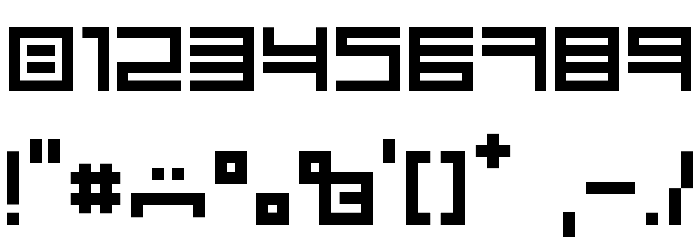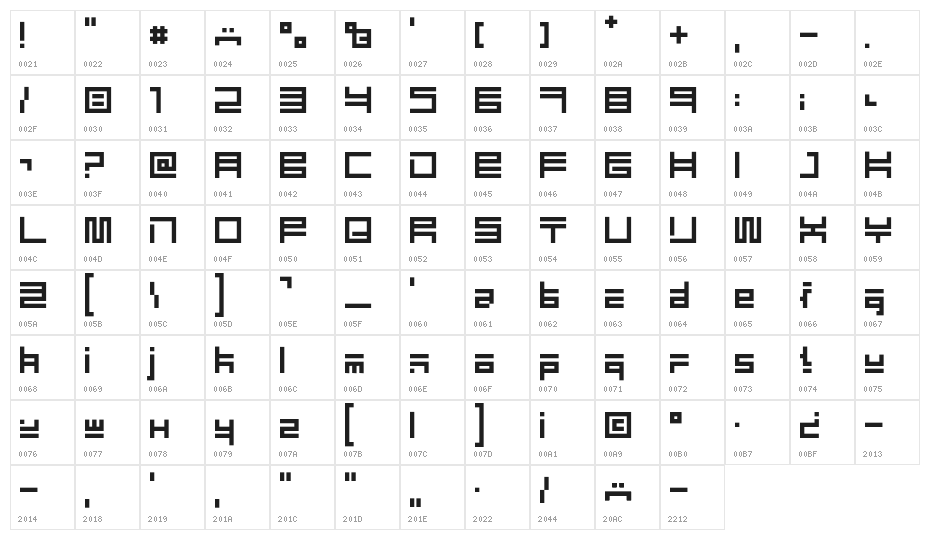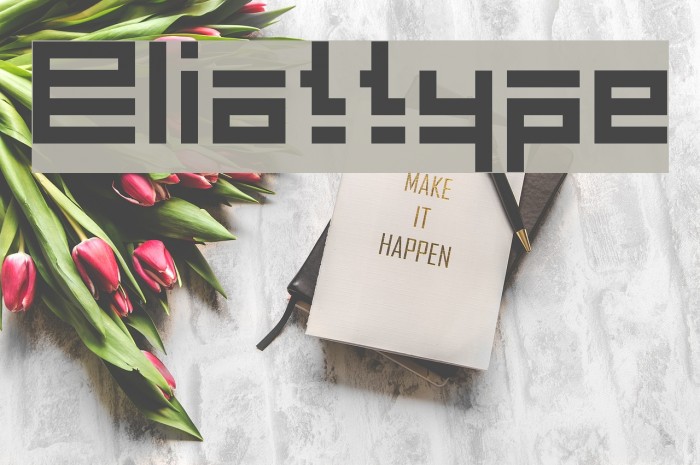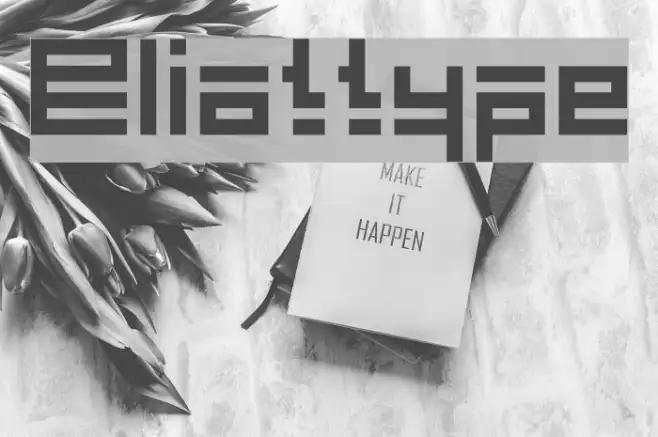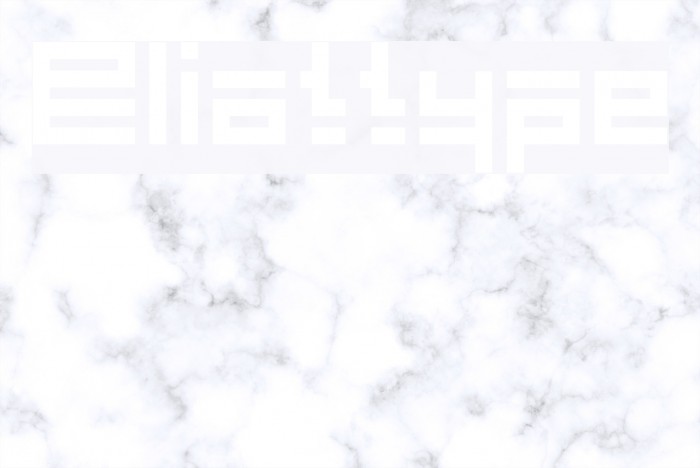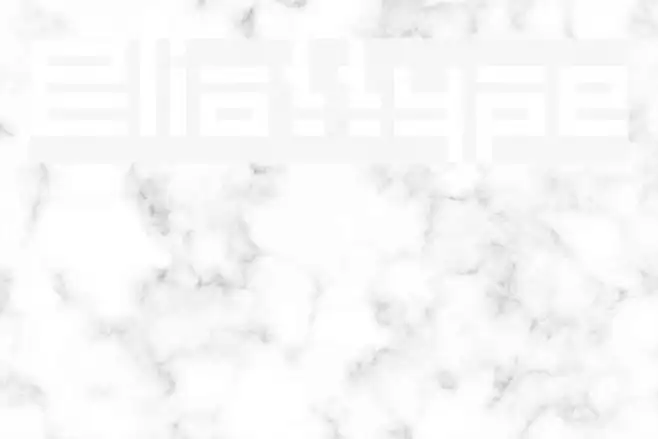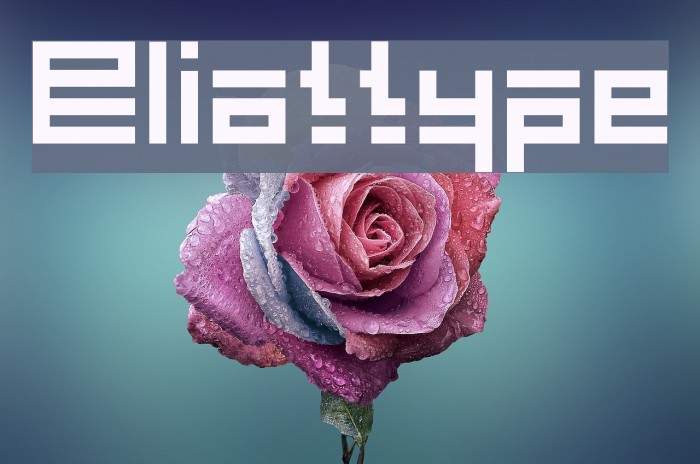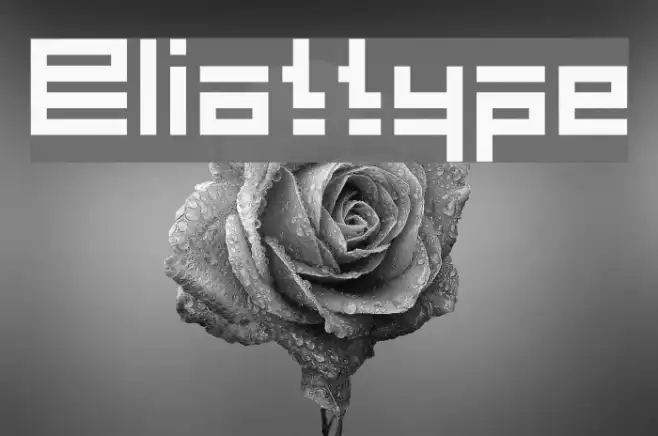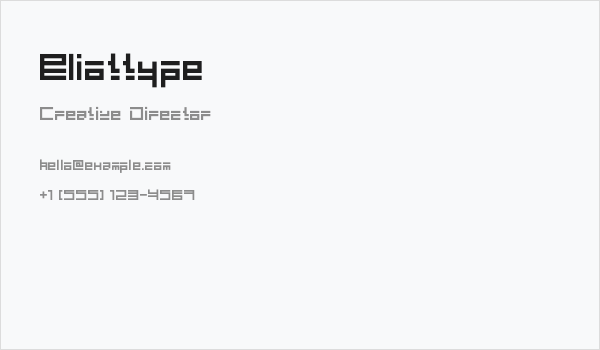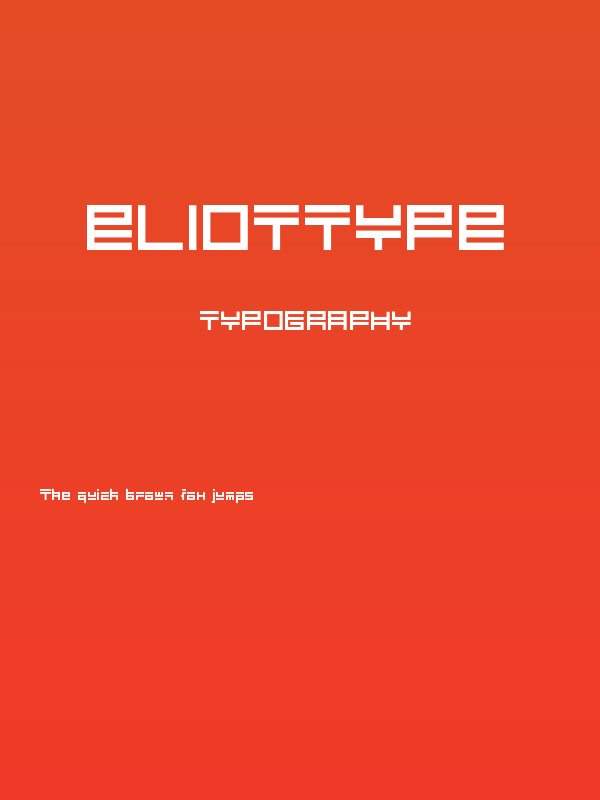
Eliottype Font
Eliottype Description
This font features a bold, geometric design with a distinctly digital aesthetic. Each character is constructed with a grid-like precision, giving it a blocky, pixelated appearance reminiscent of early computer graphics. The uppercase and lowercase letters maintain a consistent height, contributing to a uniform look across the typeface. The numerals and special characters follow the same design principles, ensuring visual cohesion. This font's style is both modern and retro, making it suitable for projects that aim to capture a tech-savvy or futuristic vibe.
| Proposed Projects | Ideal for tech-related branding, video game design, digital art projects, and futuristic-themed posters. |